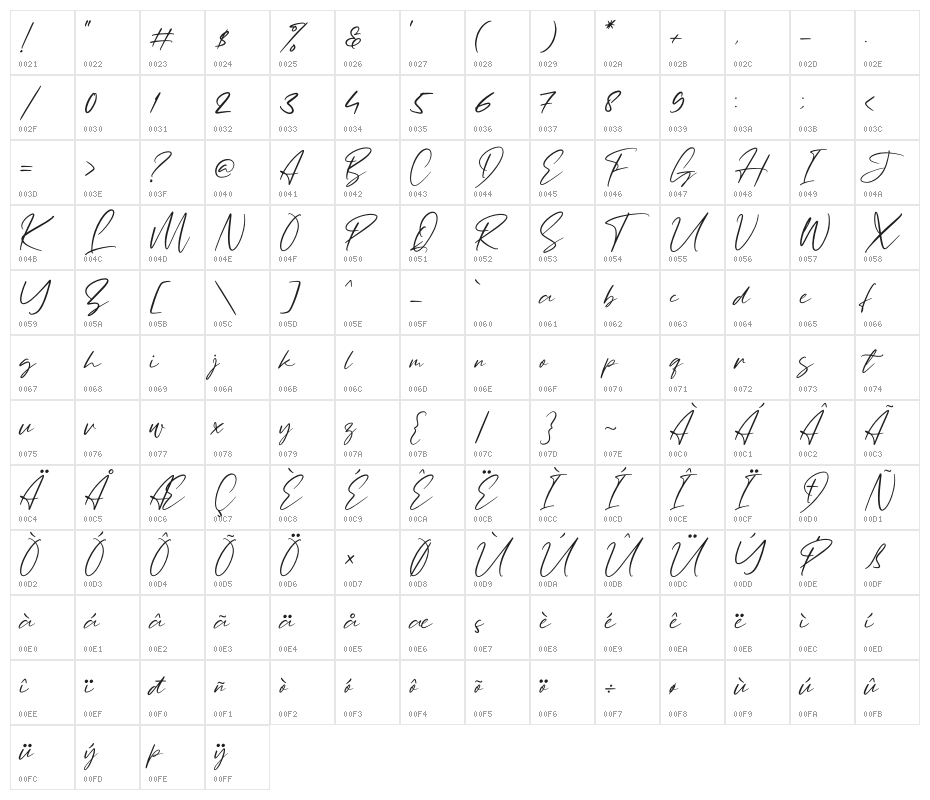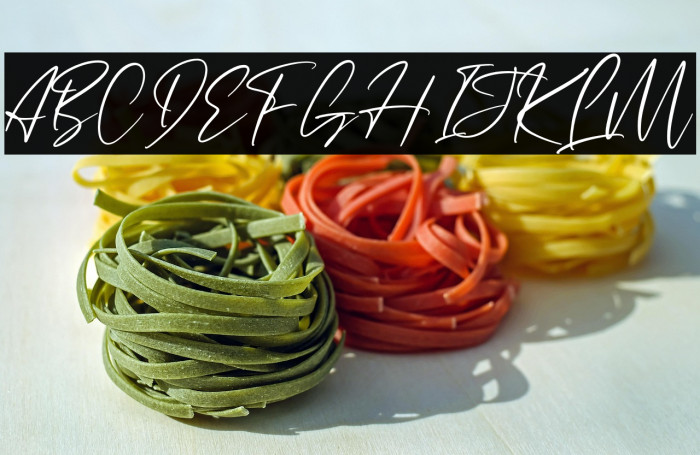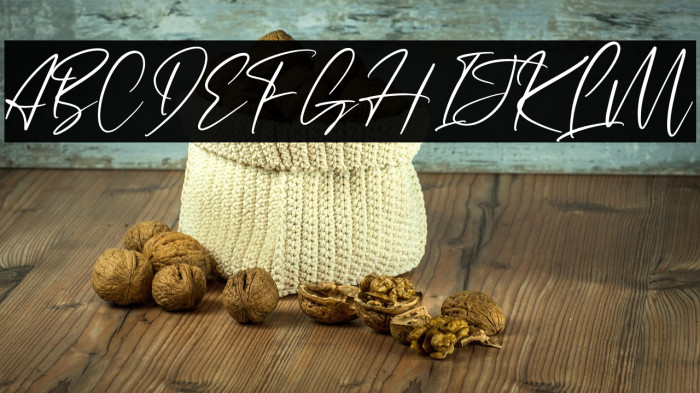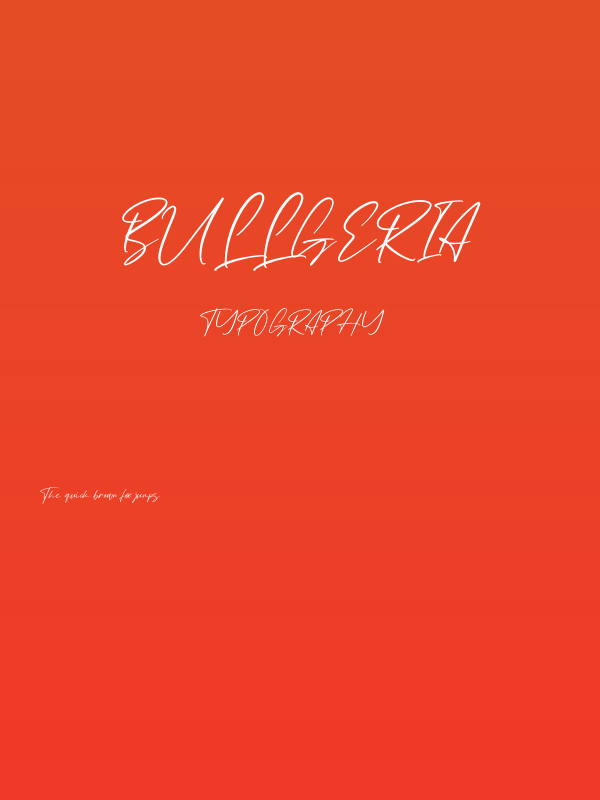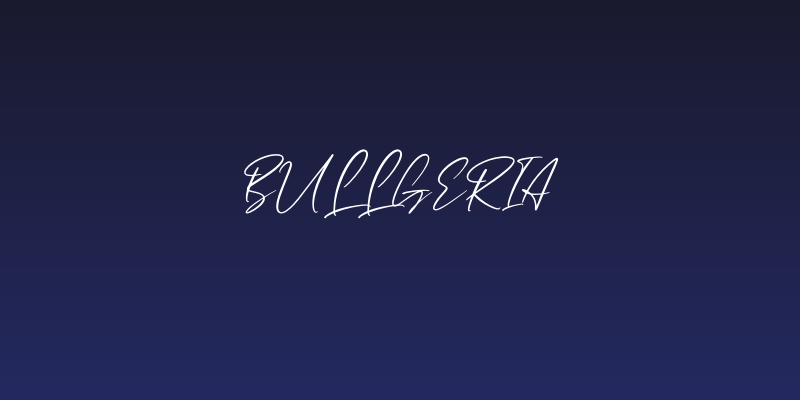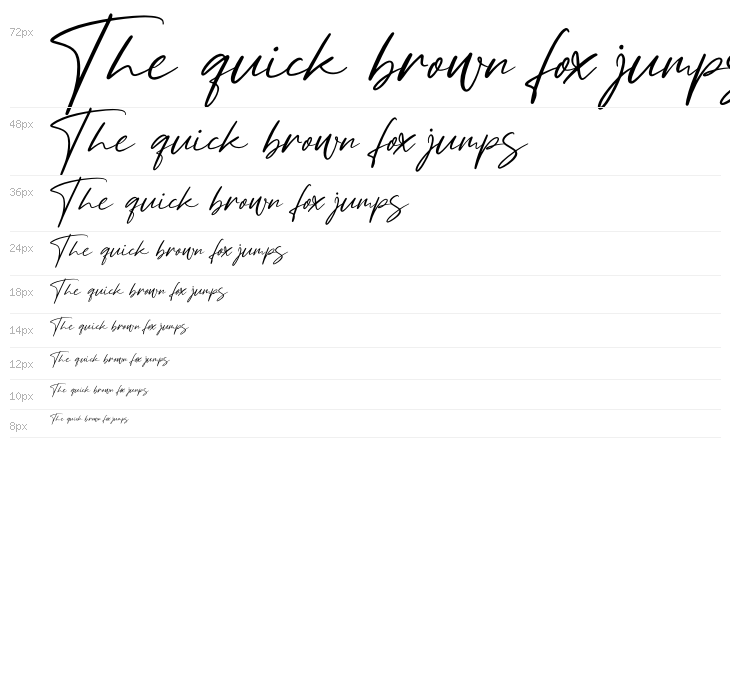
Bullgeria Font
Bullgeria Description
This font features a dynamic and fluid script style, characterized by its elegant and flowing letterforms. The uppercase letters exhibit a sense of movement and grace, with each character seamlessly connecting to the next. The lowercase letters maintain a consistent rhythm, enhancing the overall cohesiveness of the font. The numerals are designed with a similar flair, ensuring they blend well with the alphabetic characters. Special characters are thoughtfully integrated, maintaining the font's aesthetic appeal. The strokes are moderately thick, providing a balanced contrast that enhances readability while preserving the artistic flair. This font is ideal for projects that require a personal touch or a sense of sophistication.
| Proposed Projects | Ideal for wedding invitations, greeting cards, branding, and elegant packaging designs. |